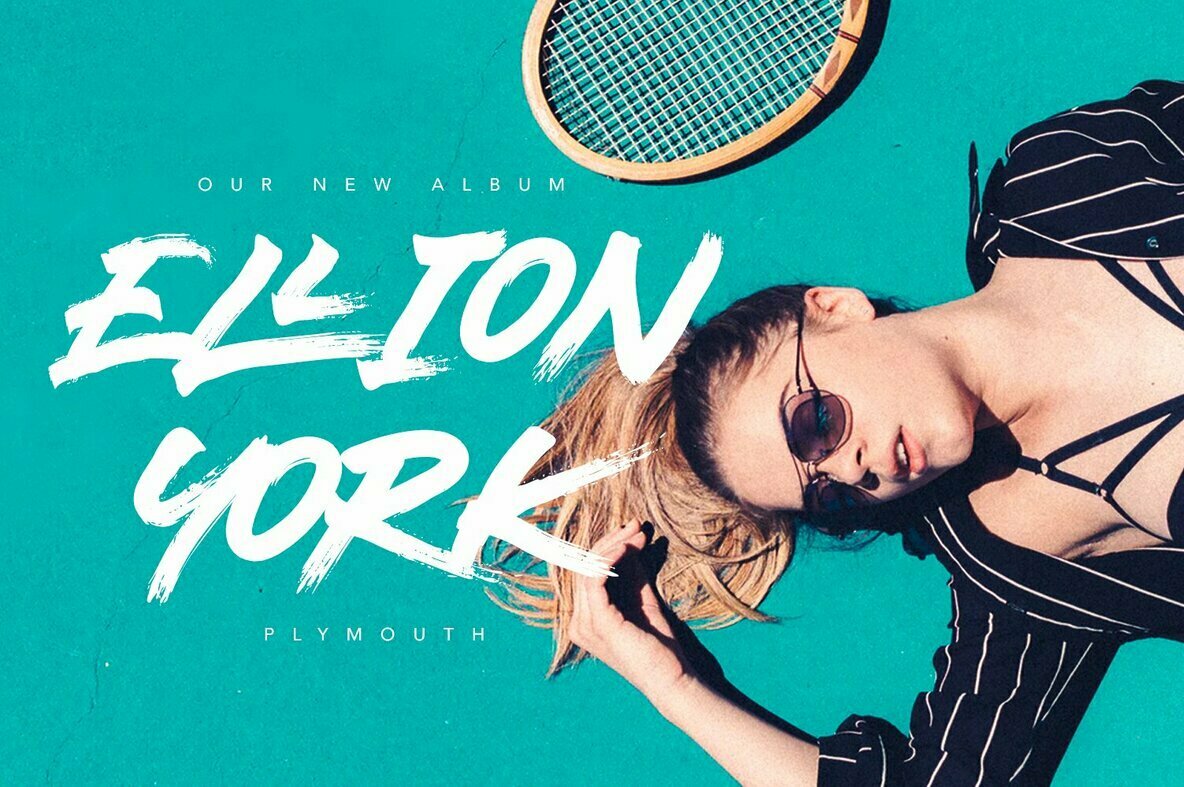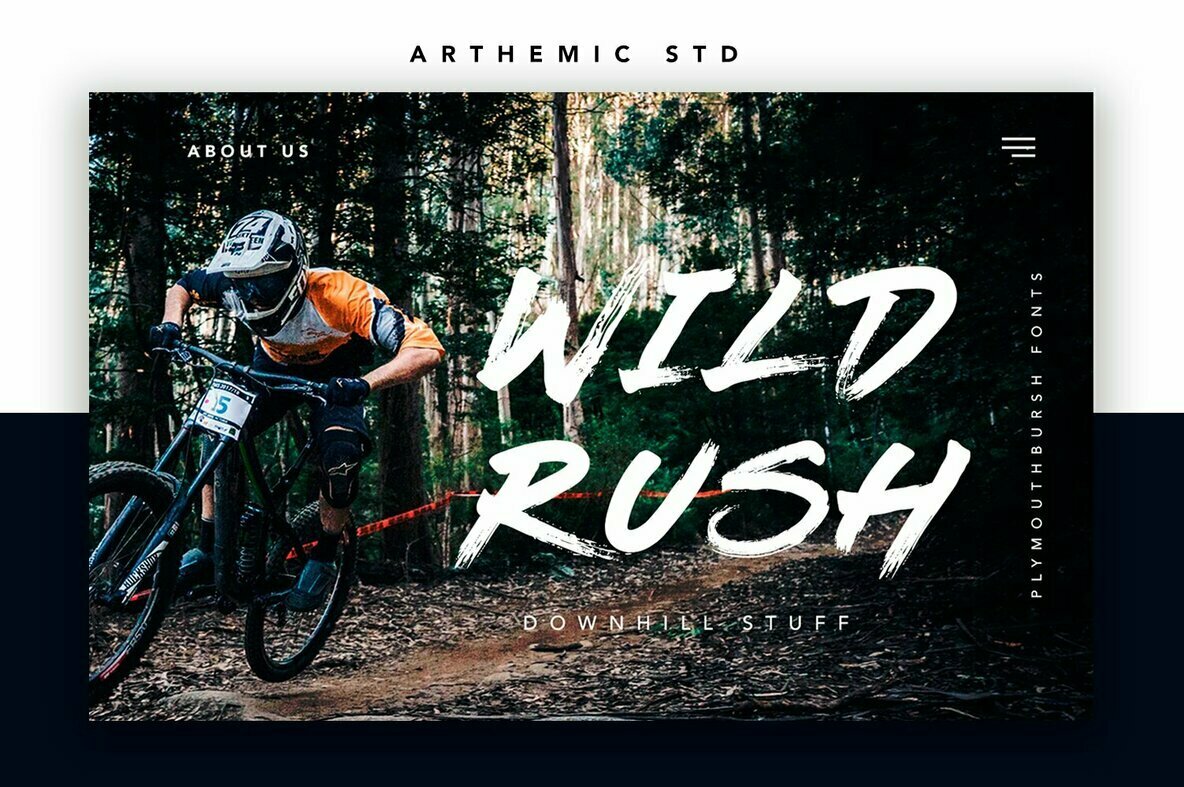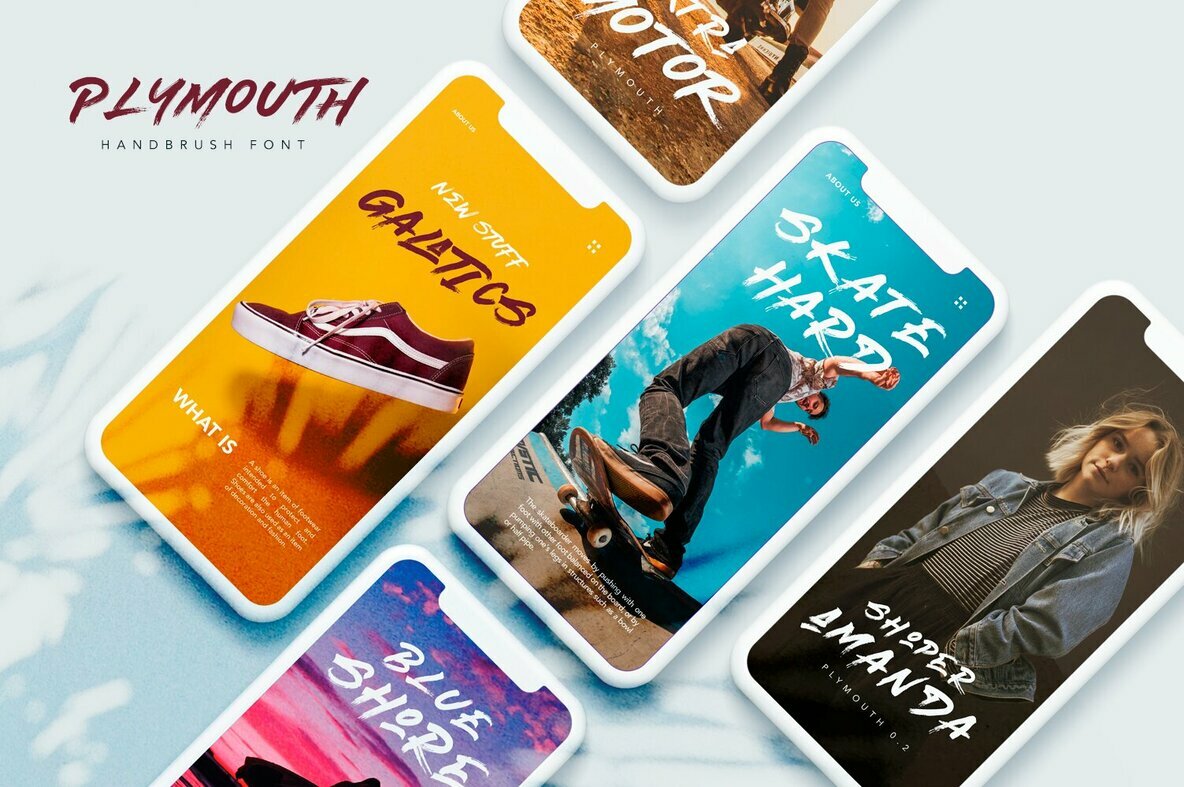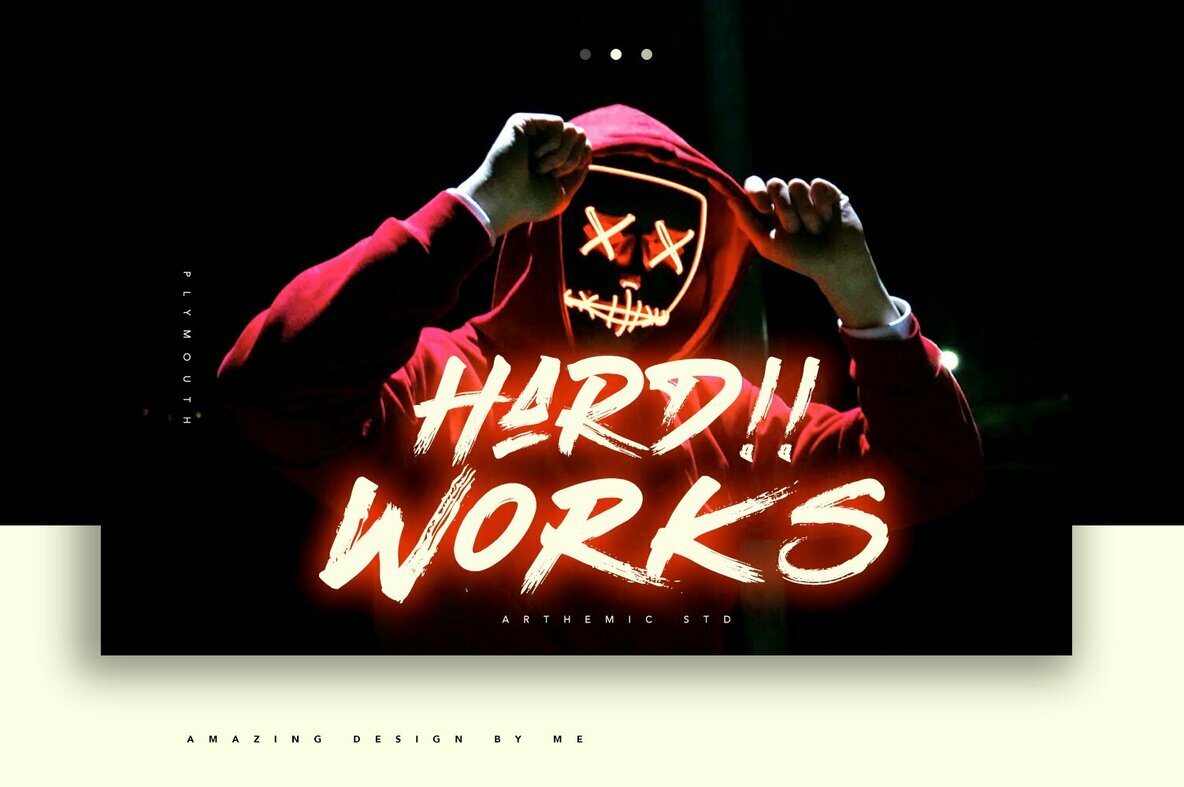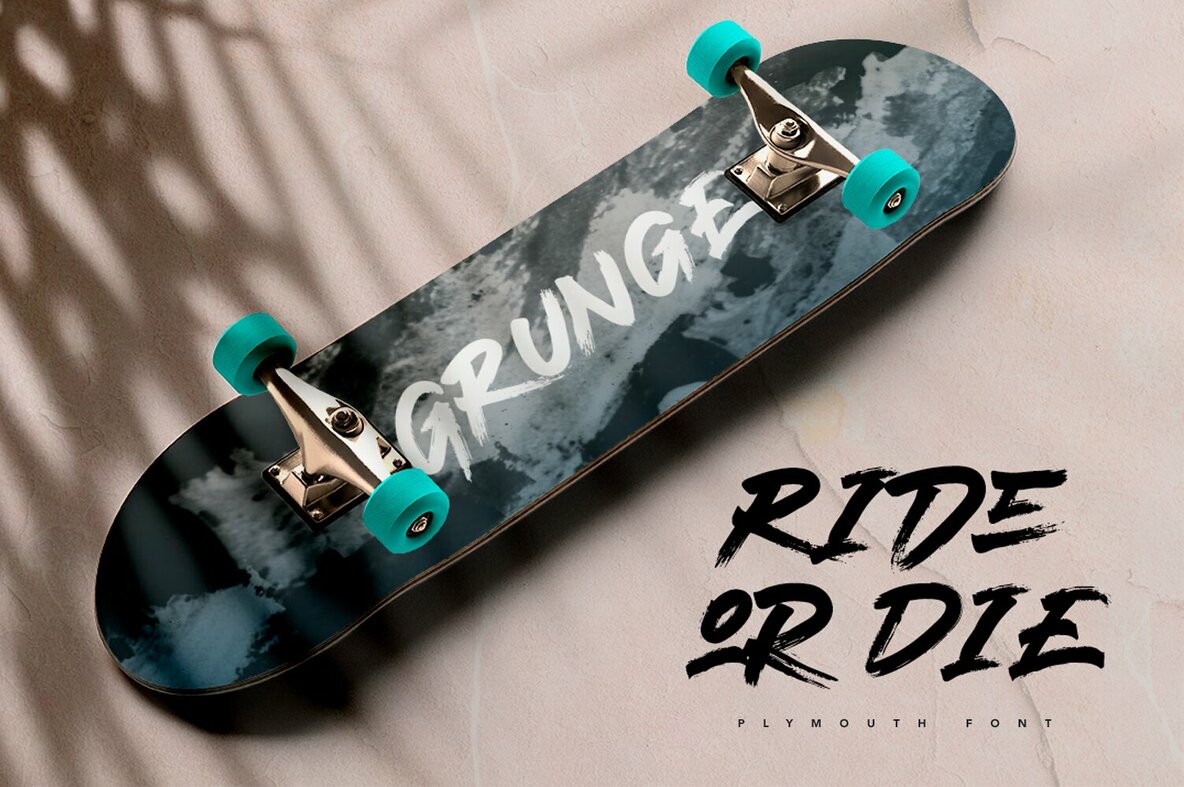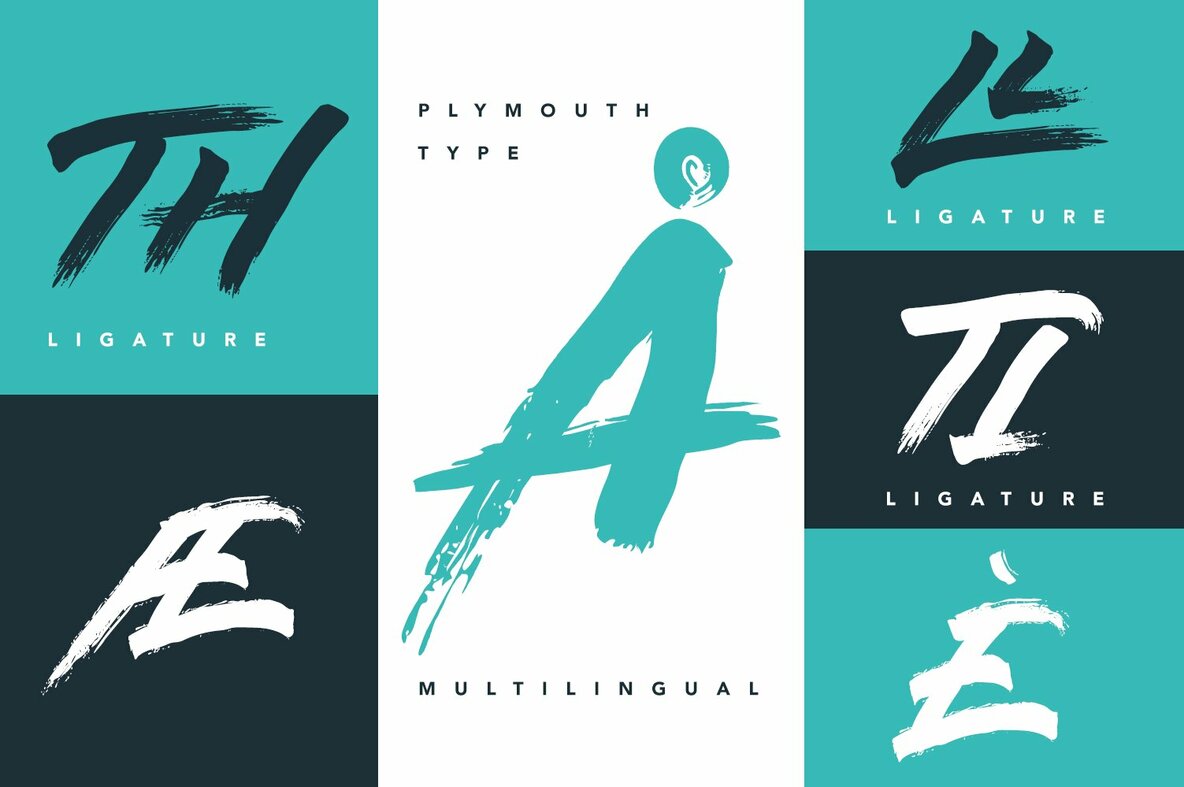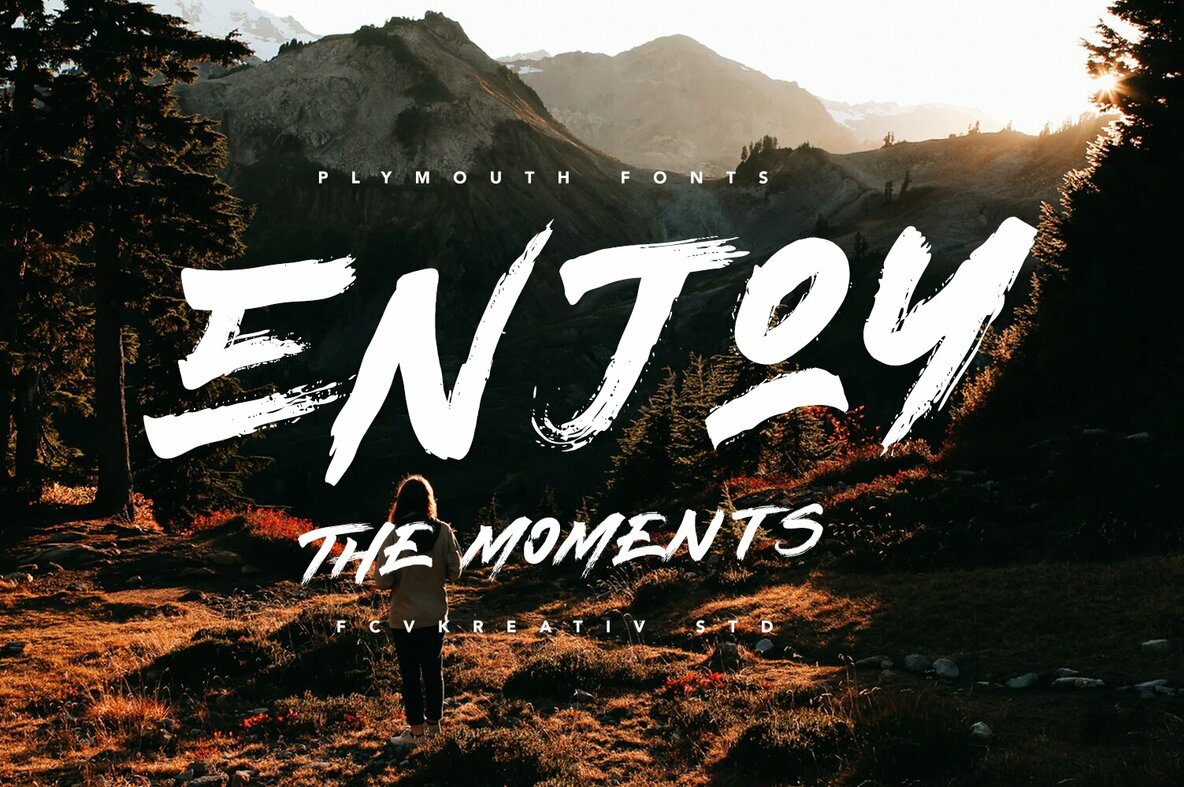
Plymouth: Bold Brush Style Duo
Plymouth, designed to capture attention, is a dynamic font duo embodying bold grunge aesthetics with a wild brush style. Suitable for a variety of applications, this typeface is an excellent choice for impactful designs, from posters to movie titles.
• Brush Style – Offers a raw, energetic appearance.
• Grunge Aesthetic – Enhances edgy designs with its bold strokes.
• Versatile Applications – Ideal for posters, cinema artwork, and more.